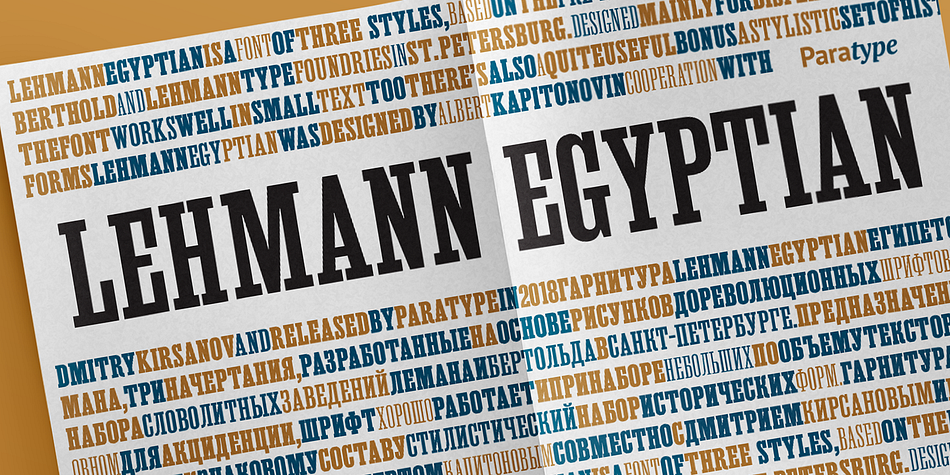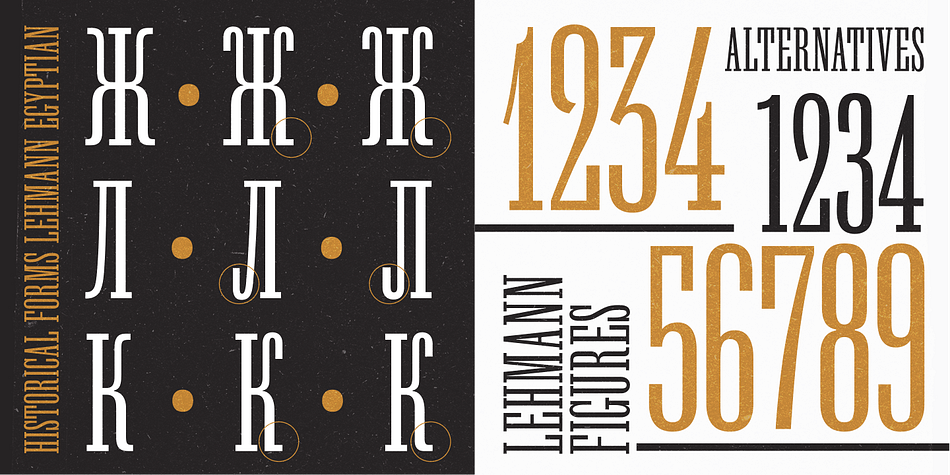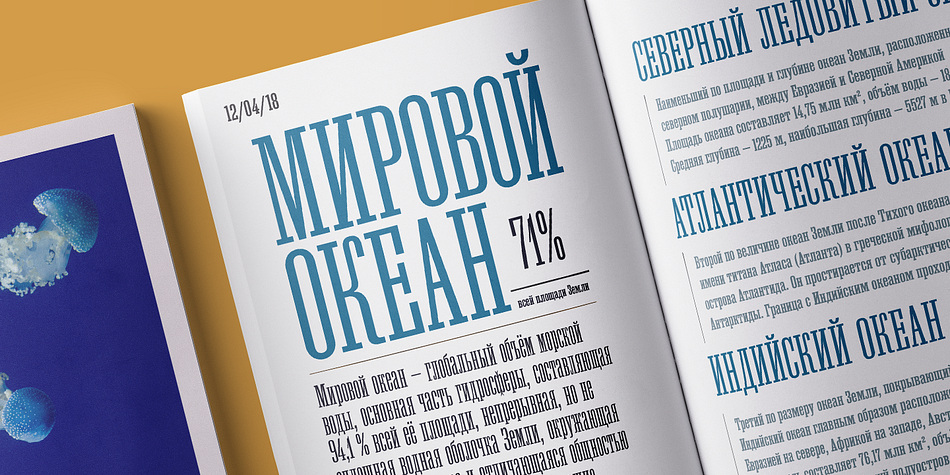
Lehmann Egyptian
Designed by Dmitry Kirsanov and Albert Kapitonov, Lehmann Egyptian is a display slab and slab serif font family. This typeface has three styles and was published by ParaType.
Lehmann Egyptian, a font of three styles, is based on the early 20th century fonts by Berthold and Lehmann type foundries in St. Petersburg. Designed mainly for display typography, the font works well in small texts too. There’s also a quite useful bonus — a stylistic set of historical forms. Lehmann Egyptian was designed by Albert Kapitonov in cooperation with Dmitry Kirsanov.